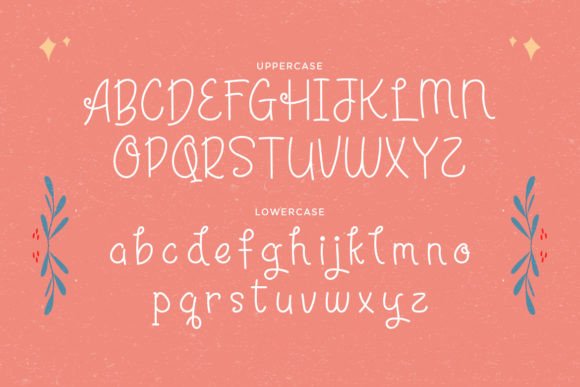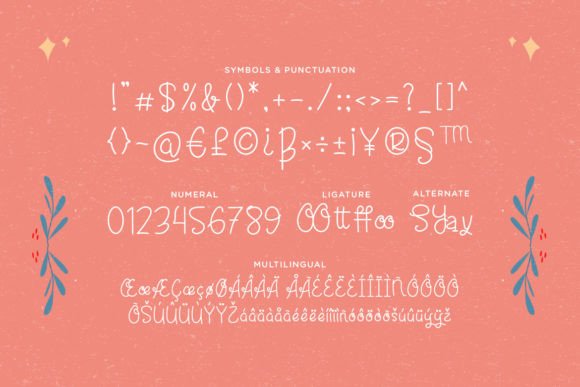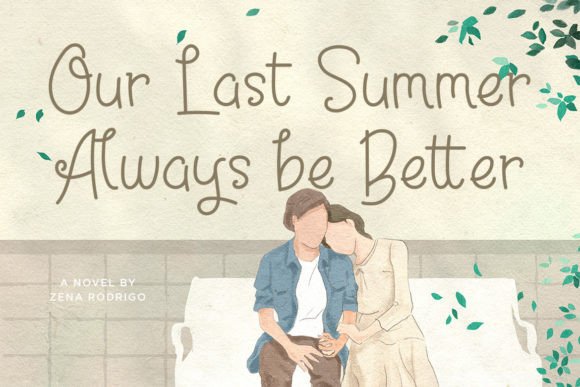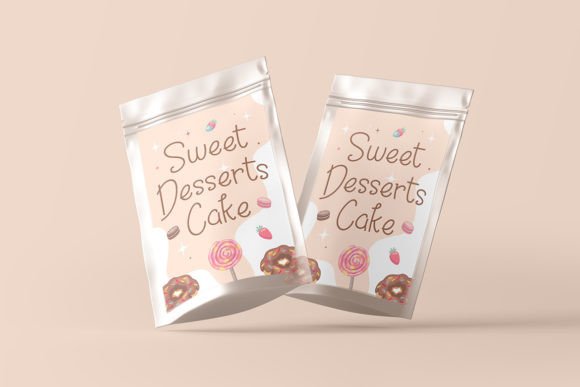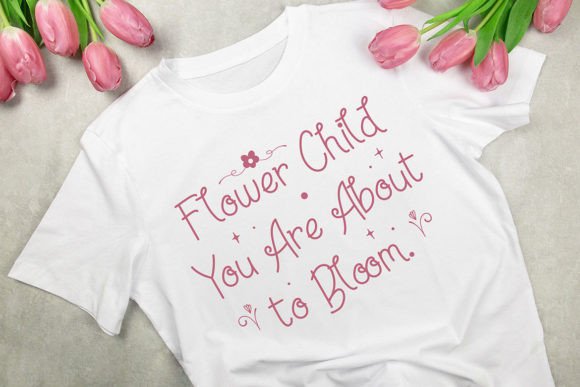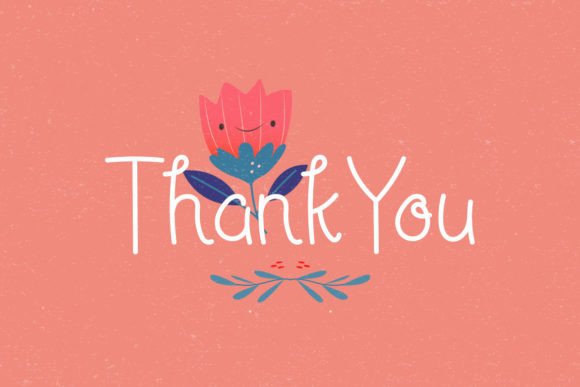
Introduction to Holfi Sley Font
Looking for a font that’s both casual and creative.
Look no further than Holfi Sley – a playful and expressive hand-drawn font that’s perfect for all your design needs With its irregular and quirky letterforms, Holfi Sley is a font that’s sure to add a touch of personality to your designs.
Key Features of Holfi Sley Font
Why Choose Holfi Sley Font?
Holfi Sley Font offers exceptional quality and versatility, making it a valuable addition to your design toolkit. Whether you’re creating for personal projects or commercial use, Holfi Sley Font delivers professional results.